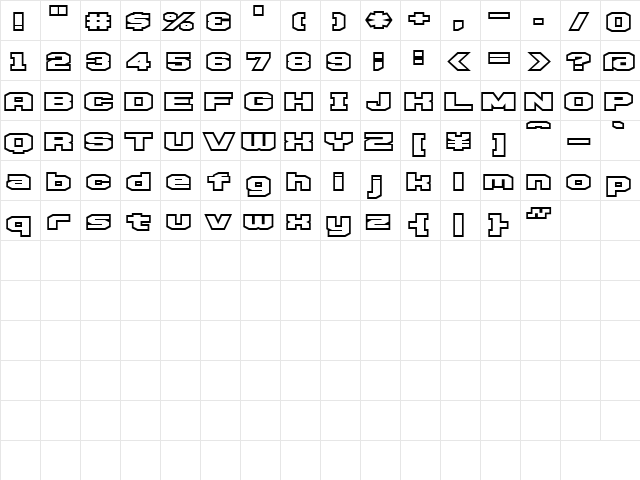
D3 Egoistism outline Regular
Design Context for D3 Egoistism outline Typeface
D3 Egoistism outline is built around its visual character rather than neutral utility — its distinctive forms are designed to make an impression at display sizes.
Font Pairing: Pair with a clean neutral sans-serif for body copy to let D3 Egoistism outline's character lead without overwhelming the composition.
Pro Tip: Use D3 Egoistism outline exclusively at display sizes — it was designed to be seen, not read at length. Let a neutral companion handle body copy.